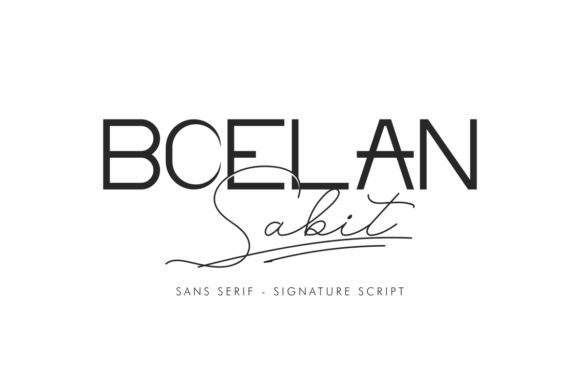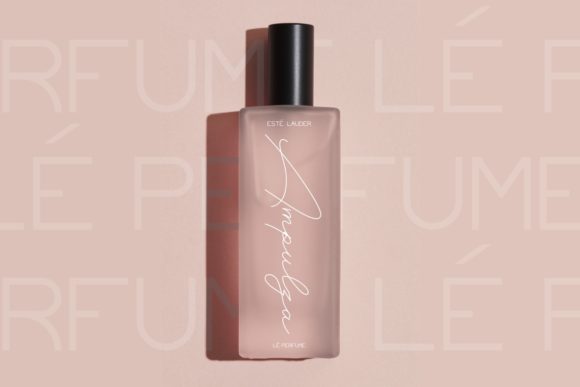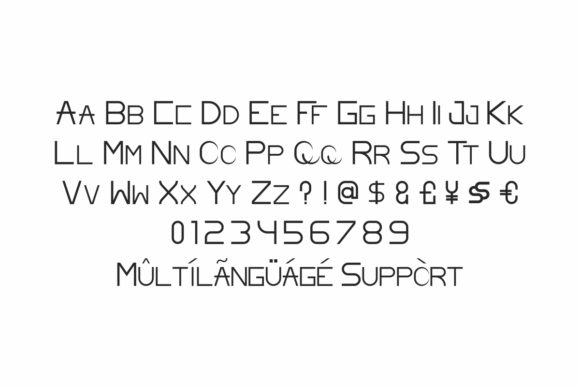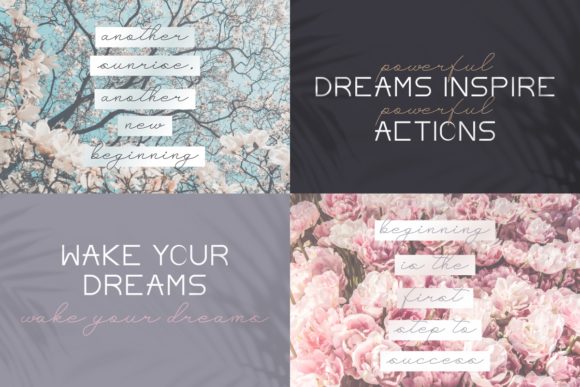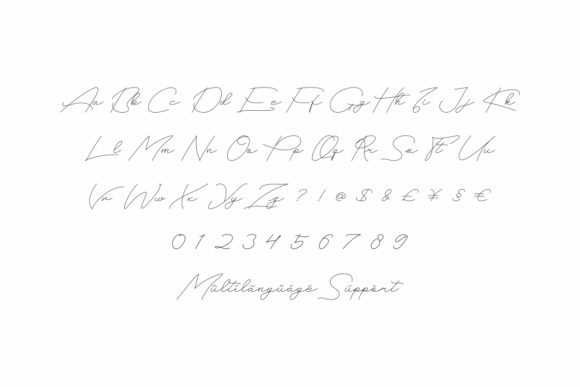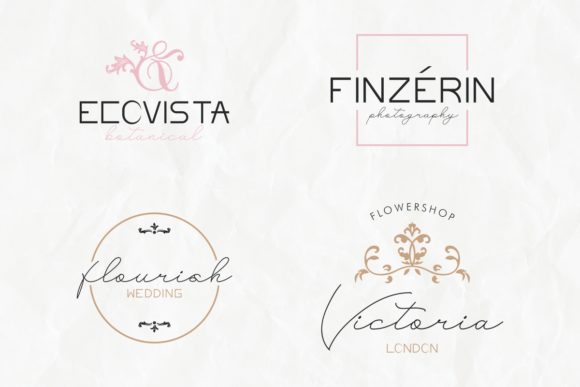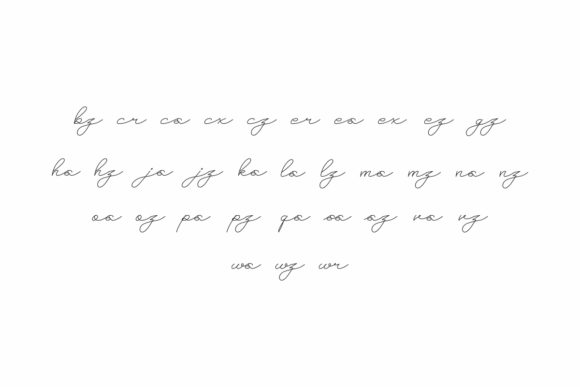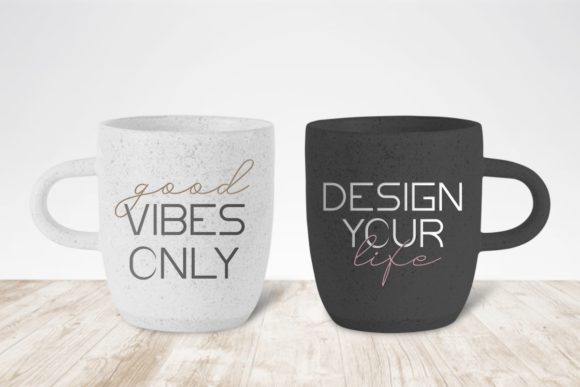
Boelan Sabit Font
About Boelan Sabit Font
Boelan Sabit is a truly remarkable and elegant duo font that combines the beauty of both script and sans serif styles. With its charming and unique appearance, Boelan Sabit is the perfect choice for a wide range of design projects.
The script font in Boelan Sabit exudes elegance and sophistication. Its flowing and graceful letterforms add a touch of beauty and personality to your designs. Whether you’re working on wedding invitations, branding projects, logos, or any other design that requires a charming and delicate look, the script font of Boelan Sabit will elevate your creations.
Complementing the script font is the sans serif font in Boelan Sabit. The sans serif style offers a clean and modern aesthetic, making it suitable for various design contexts. From headlines to body text, the sans serif font in Boelan Sabit provides a versatile and legible option that maintains consistency and balance in your designs.
The combination of the script and sans serif fonts in Boelan Sabit allows you to create visually captivating compositions. Whether you use them together or individually, these fonts work seamlessly to bring your design ideas to life.
Furthermore, Boelan Sabit’s PUA encoding makes it even more convenient to access all the glyphs and swashes. This means you can easily customize and enhance your designs with the variety of characters and decorative elements available. Let your creativity flourish as you explore the extensive possibilities provided by Boelan Sabit’s versatile set of glyphs and swashes.
Whether you’re designing wedding stationery, logos, packaging, social media graphics, or any other project that requires a charming and elegant touch, Boelan Sabit is a font that will captivate and impress. Its unique combination of script and sans serif styles offers a delightful visual experience that will elevate your designs to new heights.
Embrace the charm and elegance of Boelan Sabit and let it bring a distinctive touch to your design projects. Explore the vast range of possibilities offered by its PUA encoded glyphs and swashes, and watch as your creations come to life with the unique beauty of Boelan Sabit.